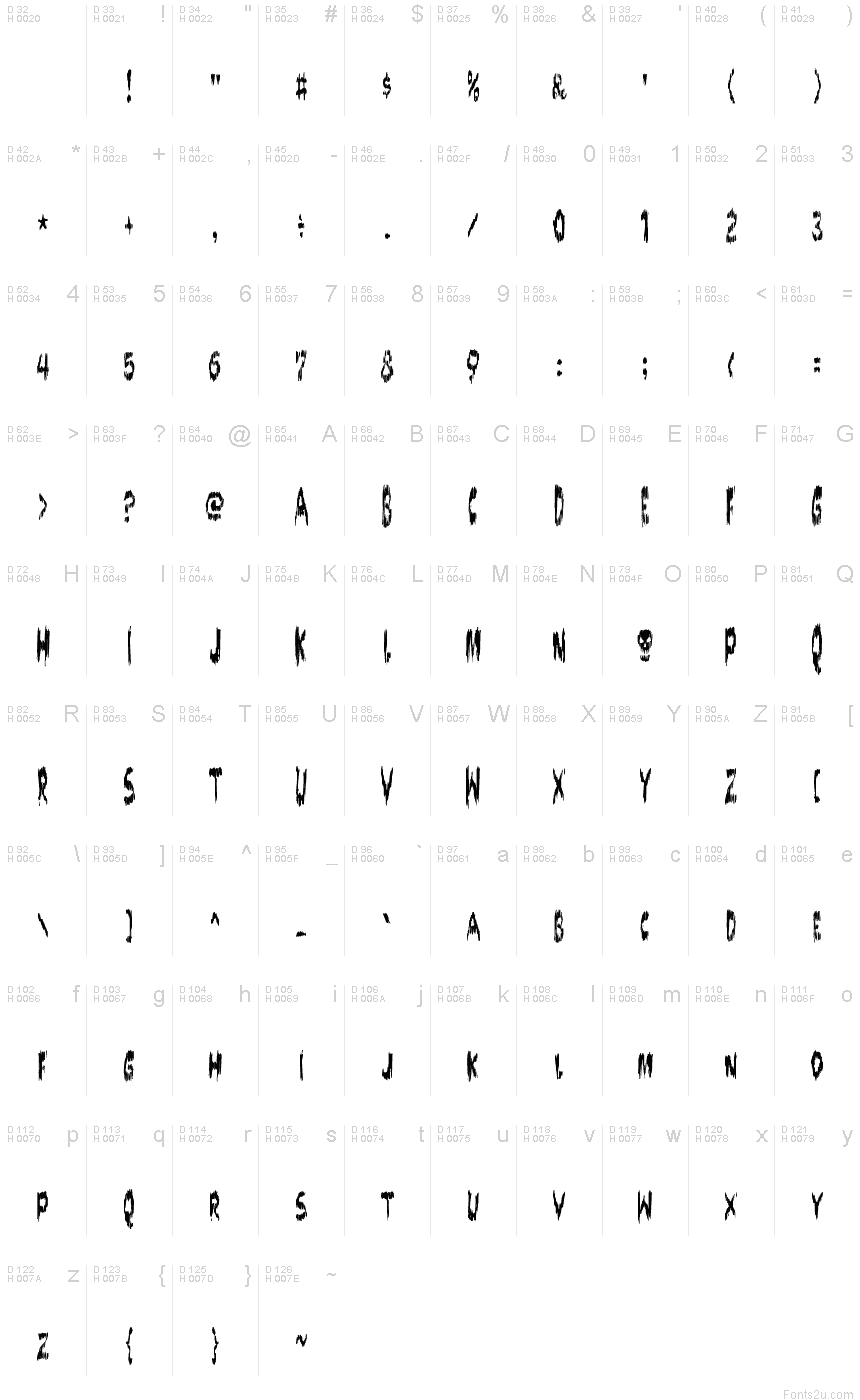
DOKTOR terror
Doktor terror font by Jakob Fischer of PizzaDude turns every word into a dripping horror scene, with jagged strokes and skull-like shapes that feel torn from a cult slasher poster. The letters sag and smear downward, giving text a gritty, decayed texture that still reads clearly at headline sizes. This free font instantly sets a sinister mood without needing extra effects.
Doktor terror works best when you want titles to feel loud and unsettling-perfect for Halloween flyers, horror movie posters, haunted attraction branding, game logos, book covers, or edgy social media graphics. Use this free font big and bold, then pair it with a clean sans serif for body text so the chaos stays focused in your headlines.